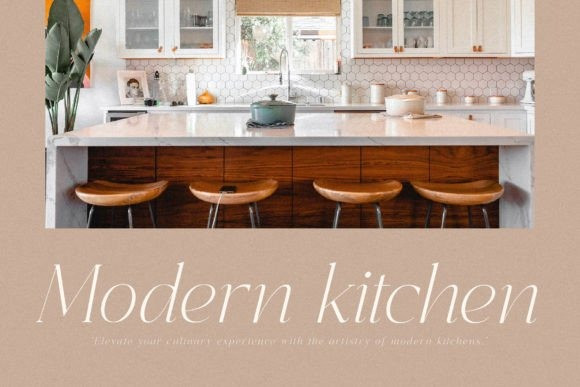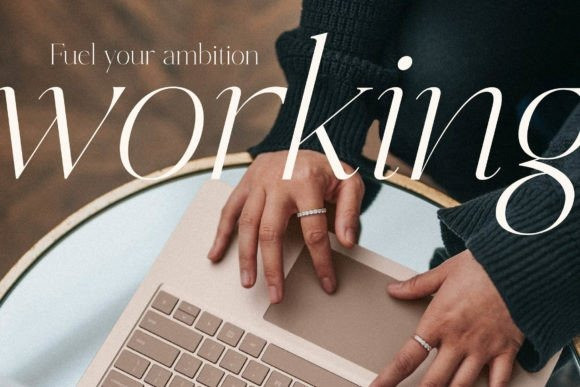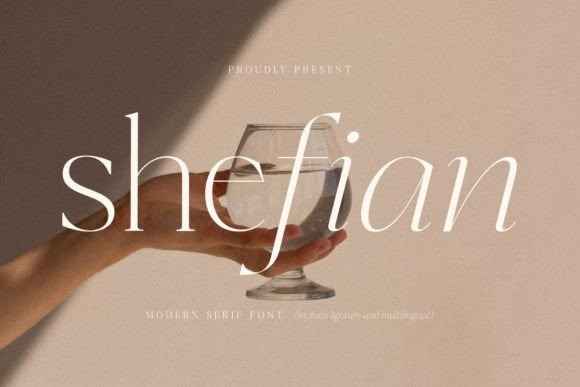
Shefian Font
Shefian Font is a modern and classic serif typeface that has own unique style. It is perfect for an elegant & luxurious logo, book or movie title design, fashion brand, magazines, clothes, lettering, quotes, and so much more.